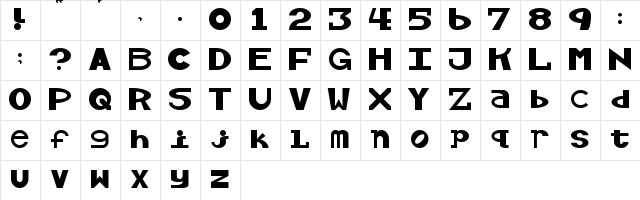
Alcohol Licks Regular
Design Context for Alcohol Licks Typeface
Alcohol Licks is a composed and adaptable typeface that performs quietly and consistently across a wide range of design contexts.